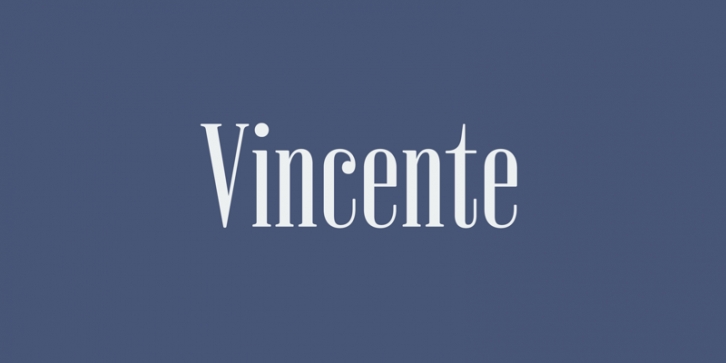
Vincente is a contemporary Didone-look serif.
This font has not only sophisticated, industrial curves but also human warmth as if they are hand-crafted with some charming accent.